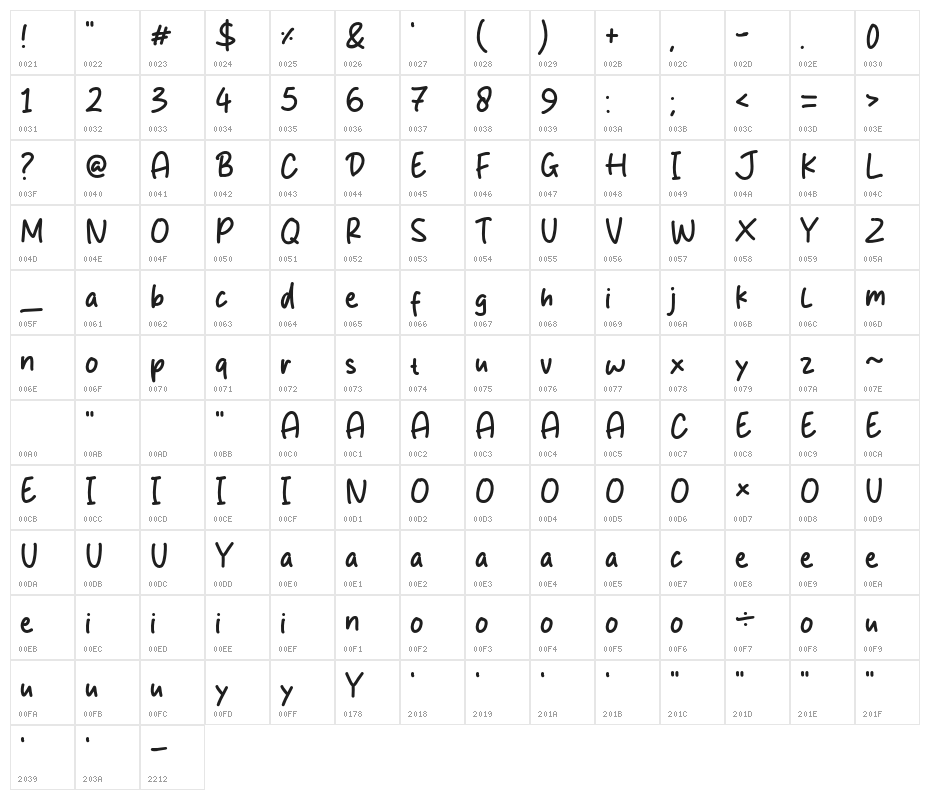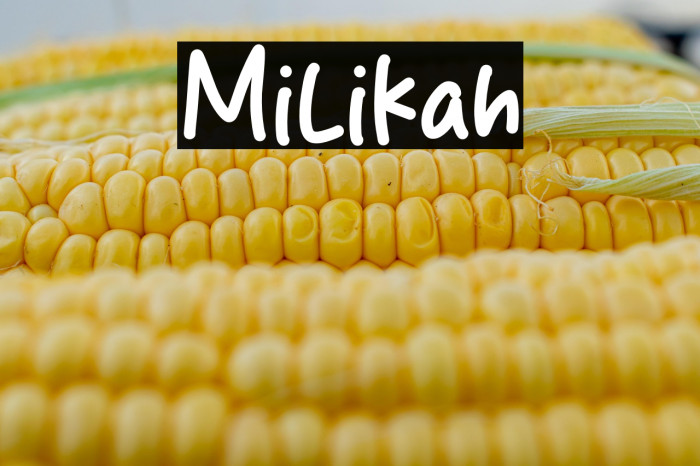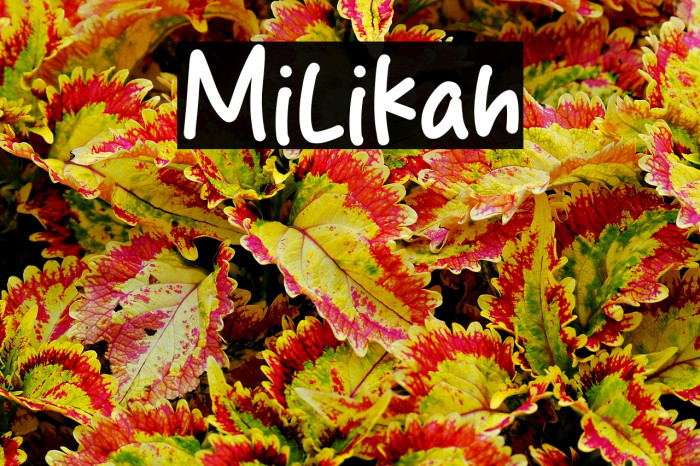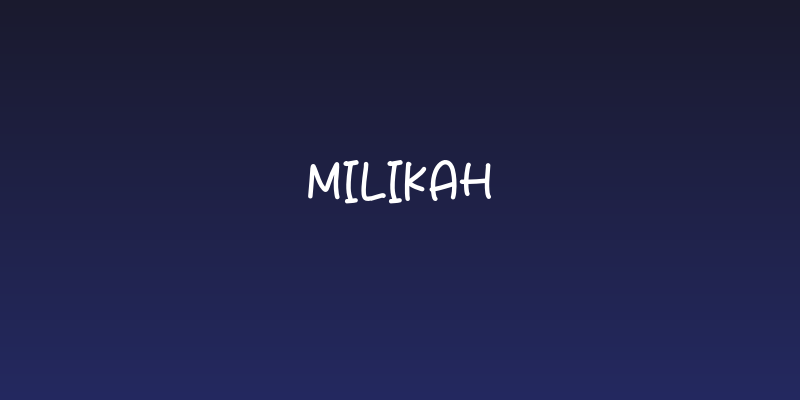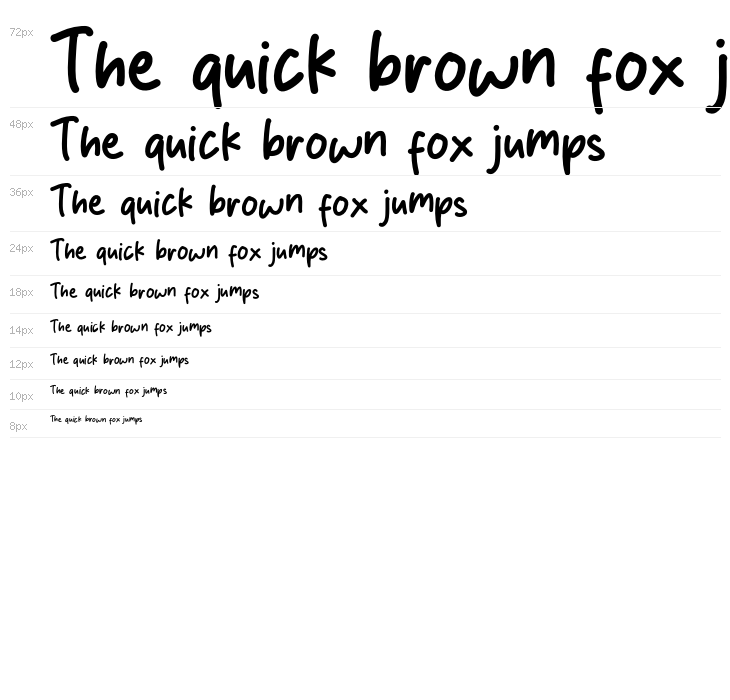
Milikah Font
Milikah Description
This font exudes a playful and casual handwritten style, characterized by its smooth, flowing curves and slightly irregular letterforms that mimic natural handwriting. The uppercase and lowercase letters maintain a consistent style, with rounded edges and a friendly appearance. The numerals and special characters are crafted to match the overall aesthetic, ensuring a cohesive look across all text. This font is perfect for projects that require a personal touch, such as invitations, greeting cards, or informal branding. Its legibility and charm make it suitable for both digital and print media.
| Overall Style | Casual |
| Use Case | Logos, Headlines, Informal text |
| Proposed Projects | Ideal for invitations, greeting cards, personal branding, and informal digital content. |